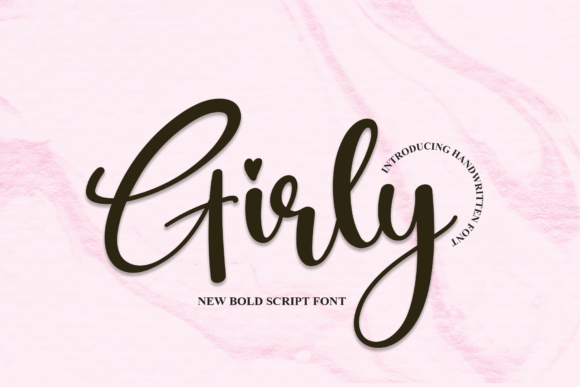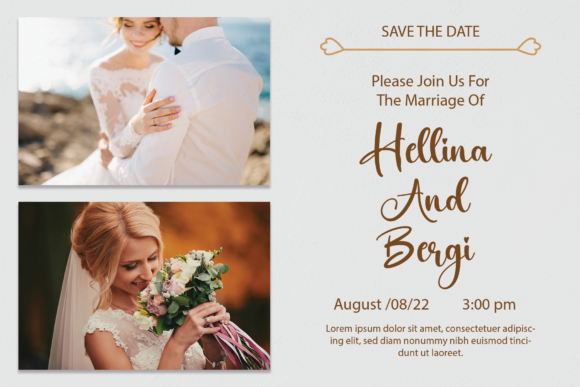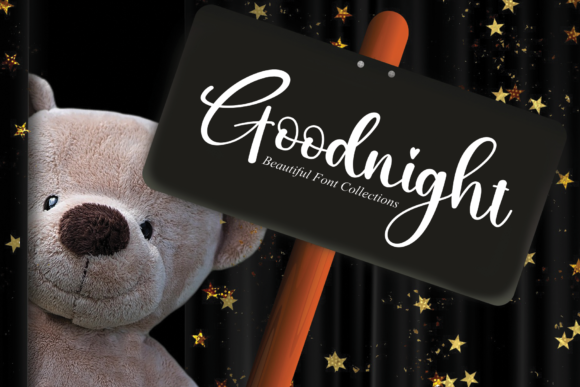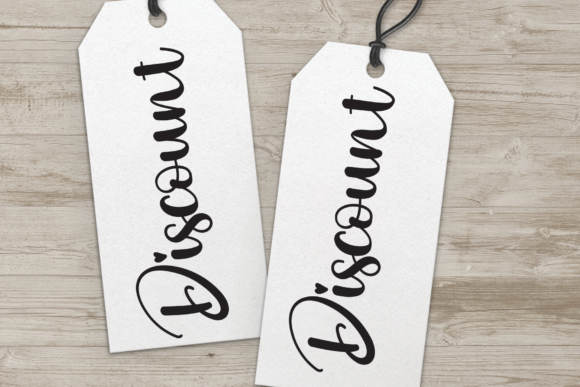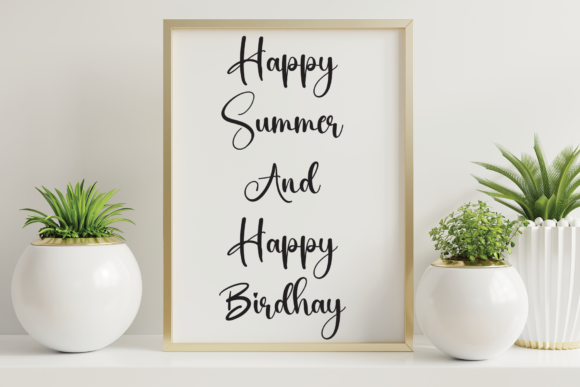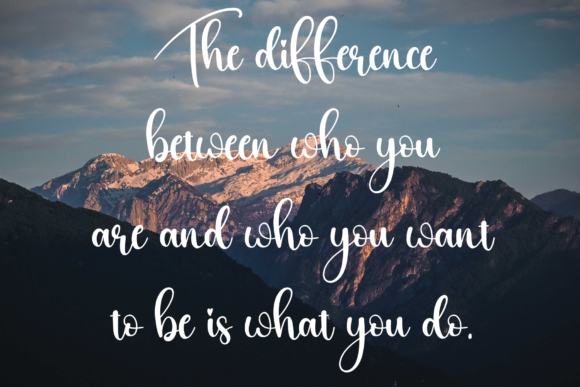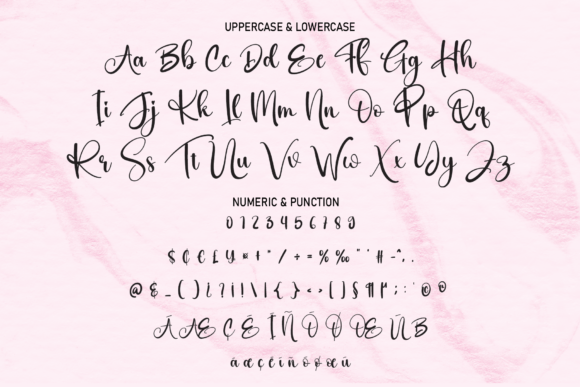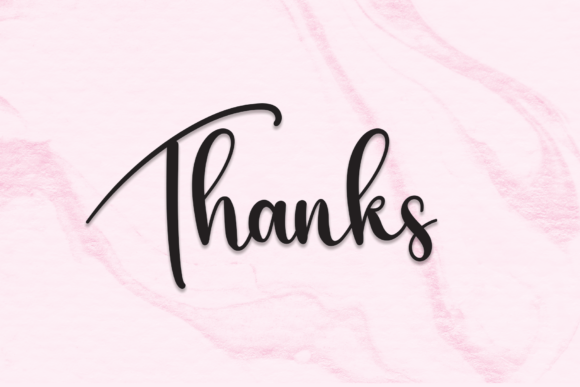
Girly Font
Girly stands out as a classic and simple handwritten script font, thoughtfully designed with a touch of randomness and freedom in its style. This versatile typeface proves to be an excellent choice for a wide range of creative applications, including logotypes, headline fonts, corporate identity, brand identity, apparel industry designs, posters, music artwork, movie titles, games, magazines, books, comics, cartoons, YouTube content, Instagram visuals, websites, and various other creative design projects.
The inherent charm of Girly lies in its ability to seamlessly marry classic simplicity with a random and free-spirited aesthetic. This distinctive combination makes the font adaptable to diverse design contexts, offering a versatile platform for creative expression. Whether you’re striving for a polished corporate identity or injecting a playful vibe into a comic strip, Girly stands ready to complement different themes and styles.
In the realm of corporate and brand identity, Girly brings a classic elegance that can enhance logos and visual elements. Its handwritten style adds a personal and authentic touch, fostering a connection between brands and their audience. In the apparel industry, music, and entertainment sectors, Girly’s versatility allows it to resonate with various styles, capturing the essence of each industry it graces.
For creative projects such as posters, books, and comics, Girly contributes an authentic and expressive quality to the design. In the digital landscape, from YouTube thumbnails to Instagram posts, Girly emerges as a standout font, making your content visually appealing and engaging.
Whether you’re a designer working on a comprehensive branding project, an illustrator crafting a comic series, or a content creator producing multimedia for diverse platforms, Girly positions itself as a reliable and versatile font. Its classic simplicity, combined with the spontaneous charm of its random and free style, makes Girly a go-to choice for a multitude of creative endeavors. With Girly, your designs effortlessly achieve a harmonious balance between timeless elegance and creative spontaneity, leaving a lasting impression on your audience.